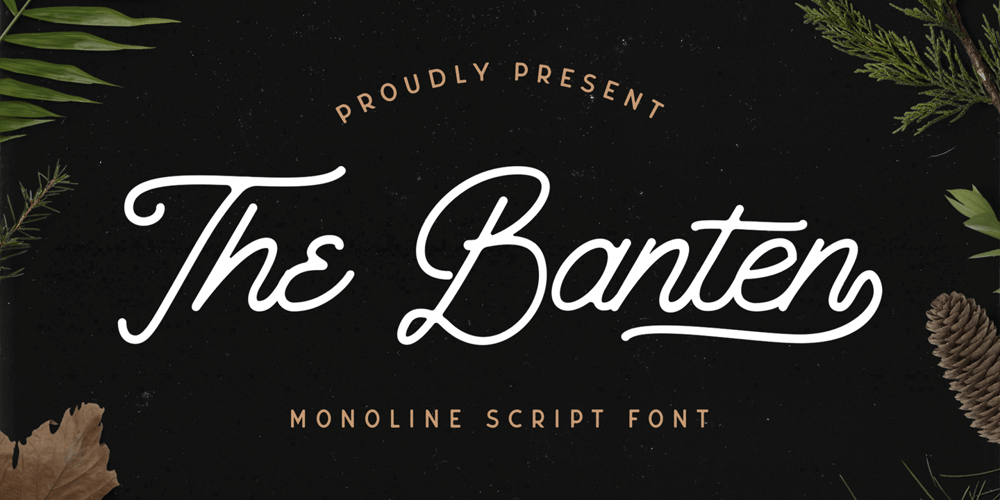
The Banten Font Family was designed by Virgiawan Listanto and published by Stringlabs Creative Studio. The Banten contains 1 styles and family package options. The Banten is a Monoline Script Font with Retro Vintage Style. This font is perfect for fashion brand, apparel, shoes company, wedding invitation, business card, logo brand, clothing, and also business brand name like barber shop or taylor. This Font Template contains Classy, Elegant, Creative, and has a Unique Concept.